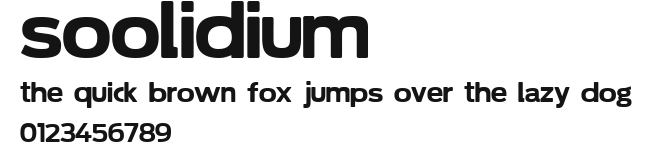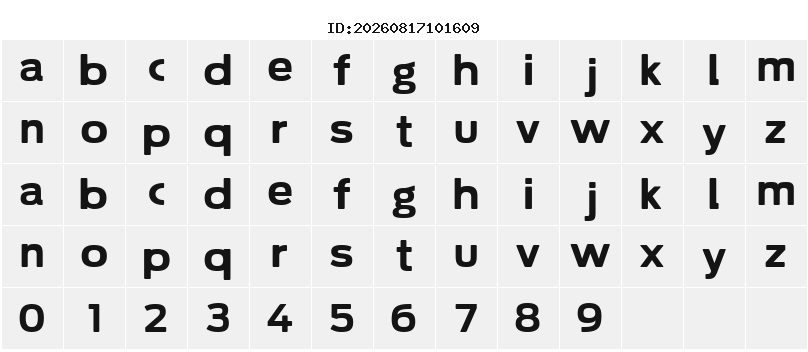
Soolidium Preview
• Font Name: Soolidium
• Full Font Name: Soolidium
• PostScript Name: Soolidium
• Designer: Alberto Alberti
• Manufacturer: Soolid
About Soolidium.ttf
Soolidium.ttf is a modern, elegant sans-serif font designed for ultimate readability and visual harmony. Perfect for branding, headlines, web design, and print materials.